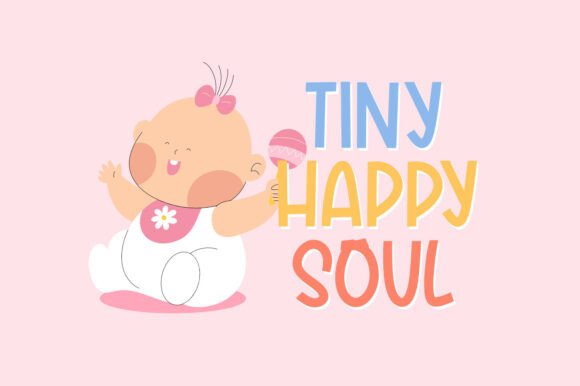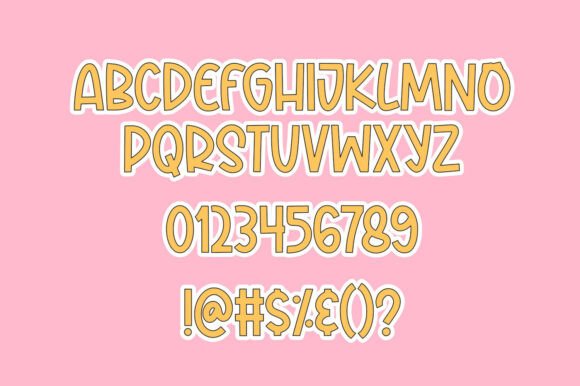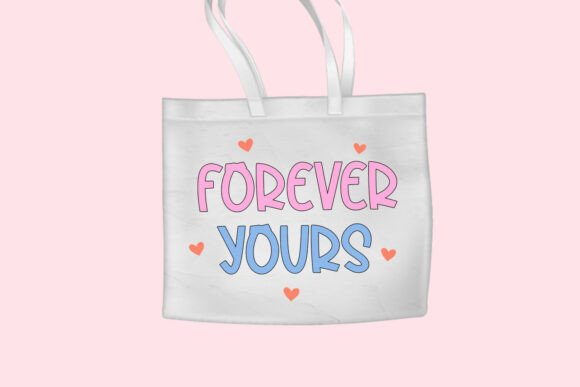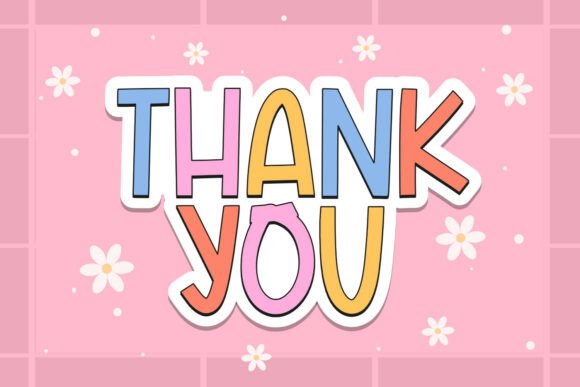
Introduction to Orchid Cutes Font Font
Fonts play a crucial role in design, and the Orchid Cutes Font font is a typeface that brings both character and versatility to any project. Whether you’re working on a branding project, a website, or a print design, the Orchid Cutes Font font offers a unique style that can elevate your work.
| 📌 Font Name | Orchid Cutes Font |
| 👤 Author | Typefar |
Orchid Cutes is colorful and festive font bursting with joy and energy.
Its playful curves, bold shapes, and lively rhythm create a cheerful personality that stands out in any design Perfect for parties, kids branding, packaging, and vibrant social media visuals full of fun.
Key Features of Orchid Cutes Font Font
Why Choose Orchid Cutes Font Font?
The Orchid Cutes Font font is more than just a typeface – it’s a design tool that helps you communicate your message with style and clarity. Its unique character set and versatile design make it suitable for a wide range of applications, from elegant invitations to bold headlines.
With its carefully crafted letterforms and balanced proportions, the Orchid Cutes Font font ensures readability and visual appeal across all mediums.
What makes Orchid Cutes Font font special?
The Orchid Cutes Font font stands out with its unique design, exceptional readability, and versatility across various design applications.